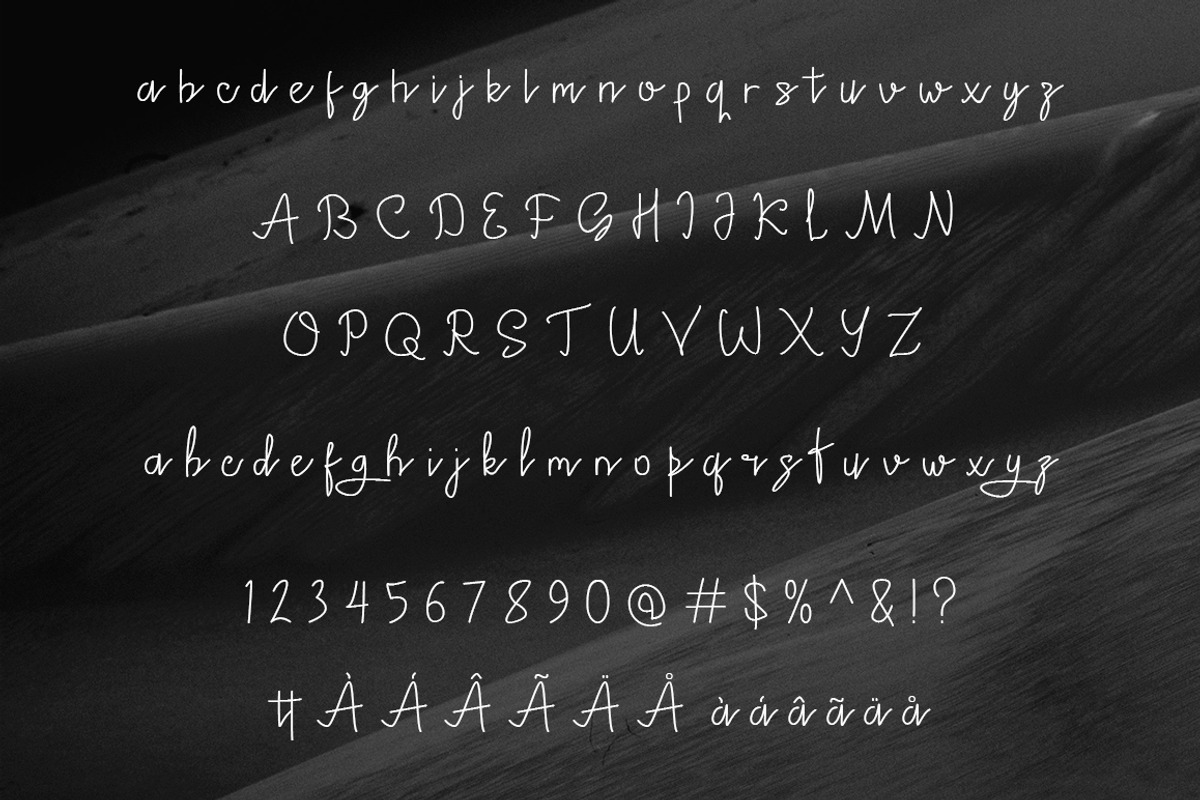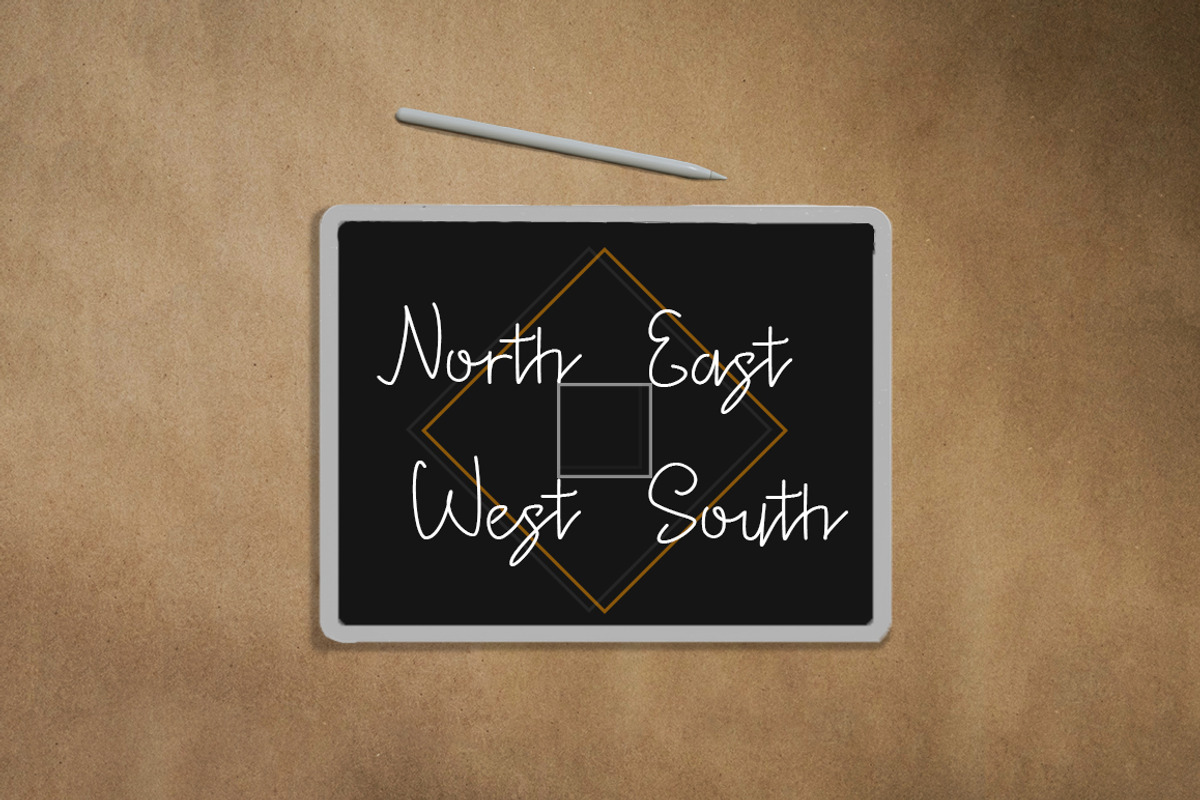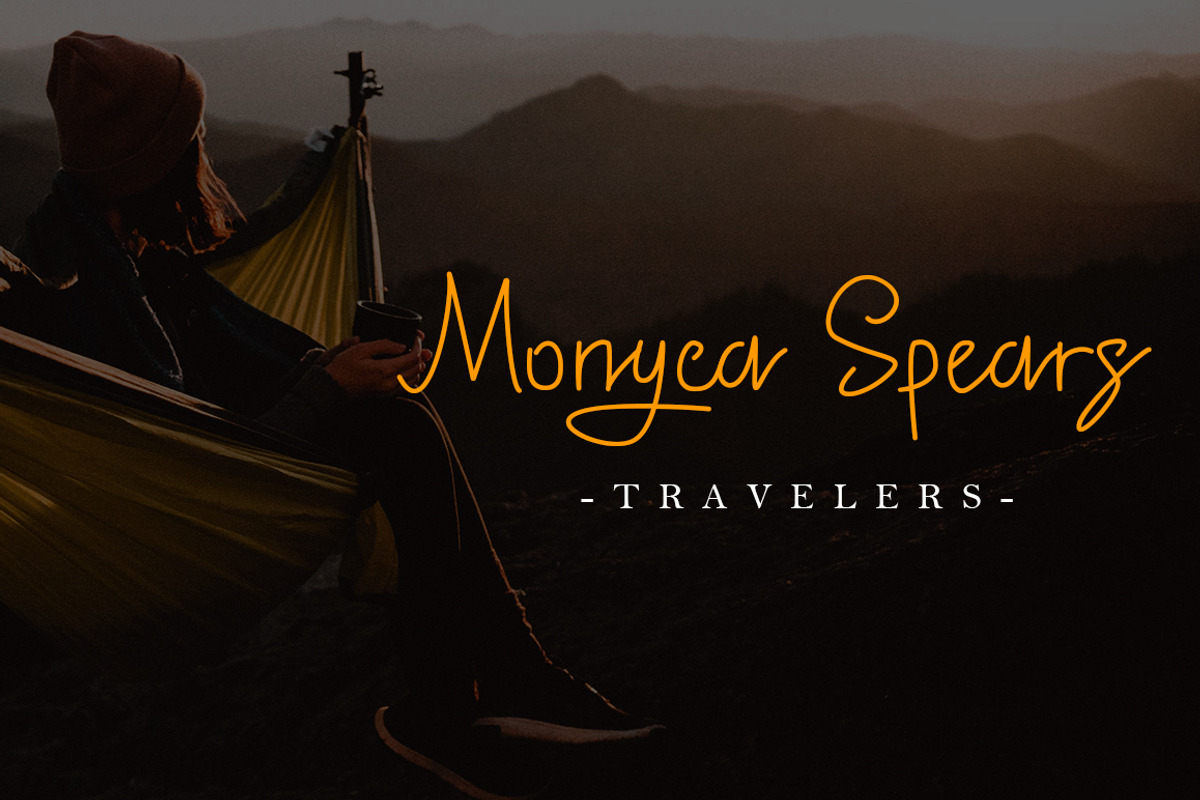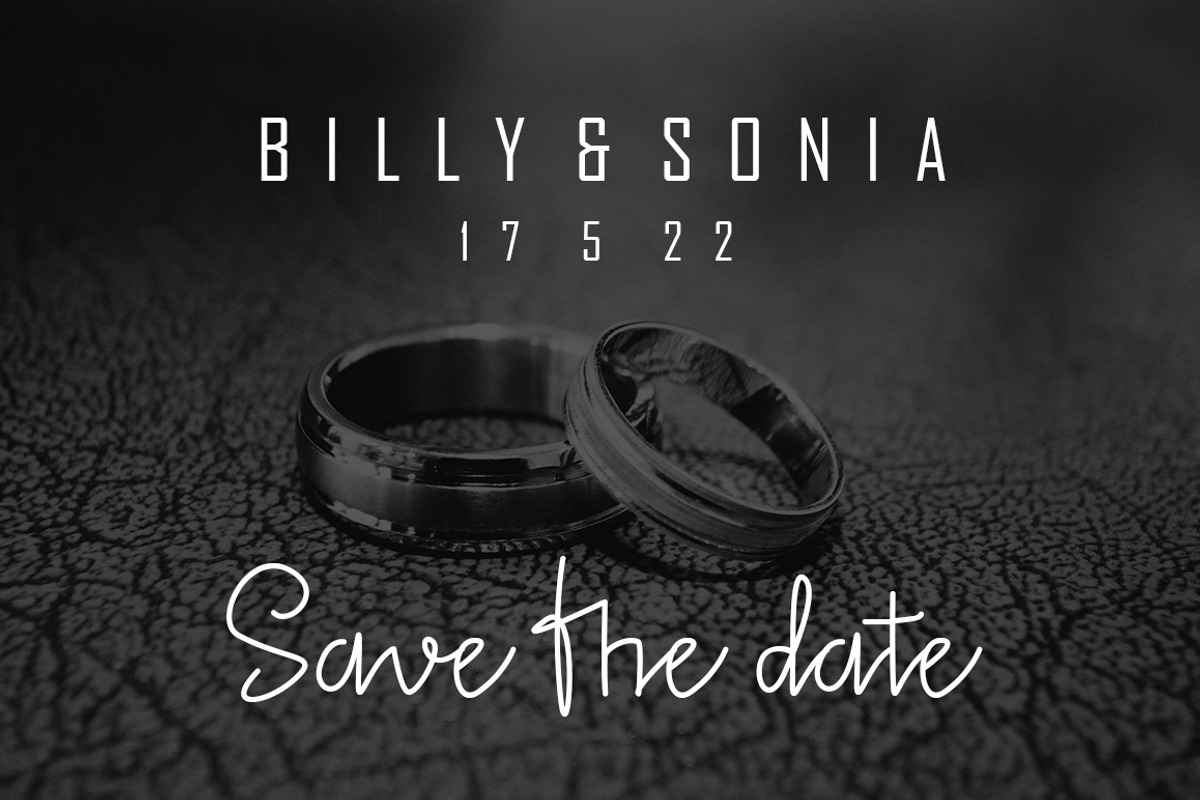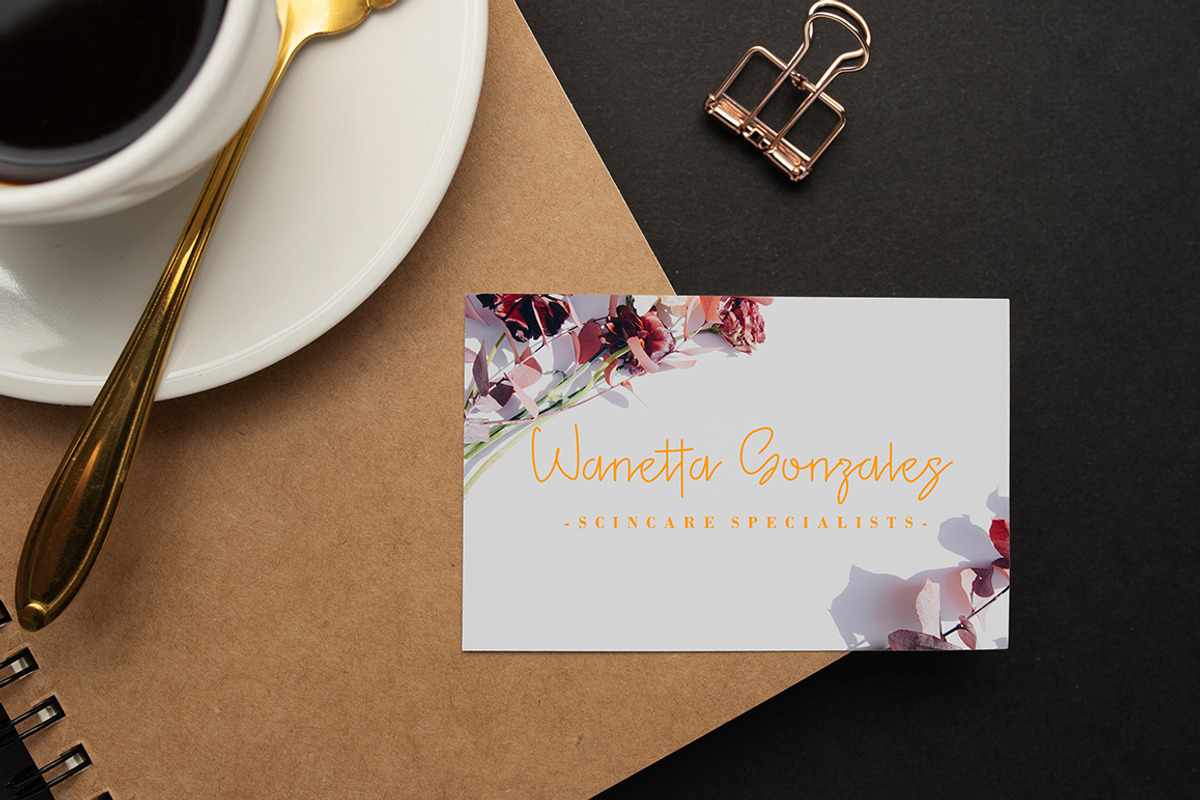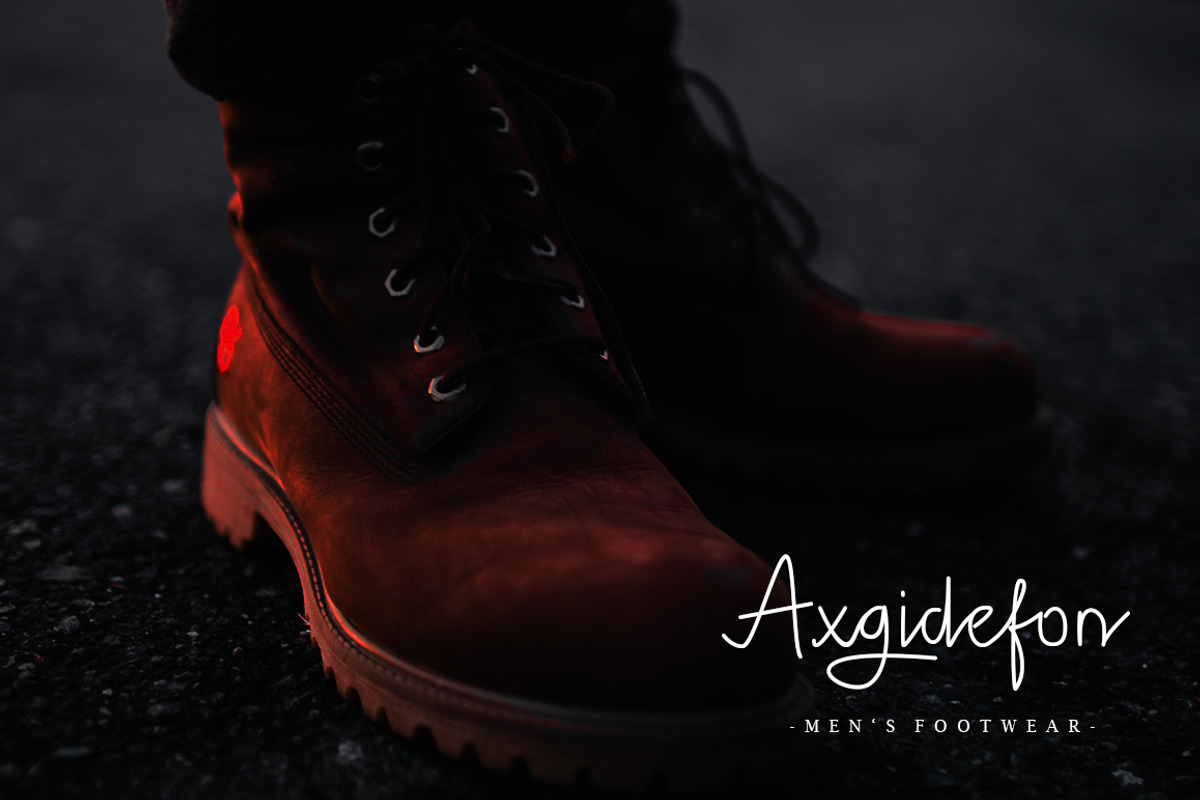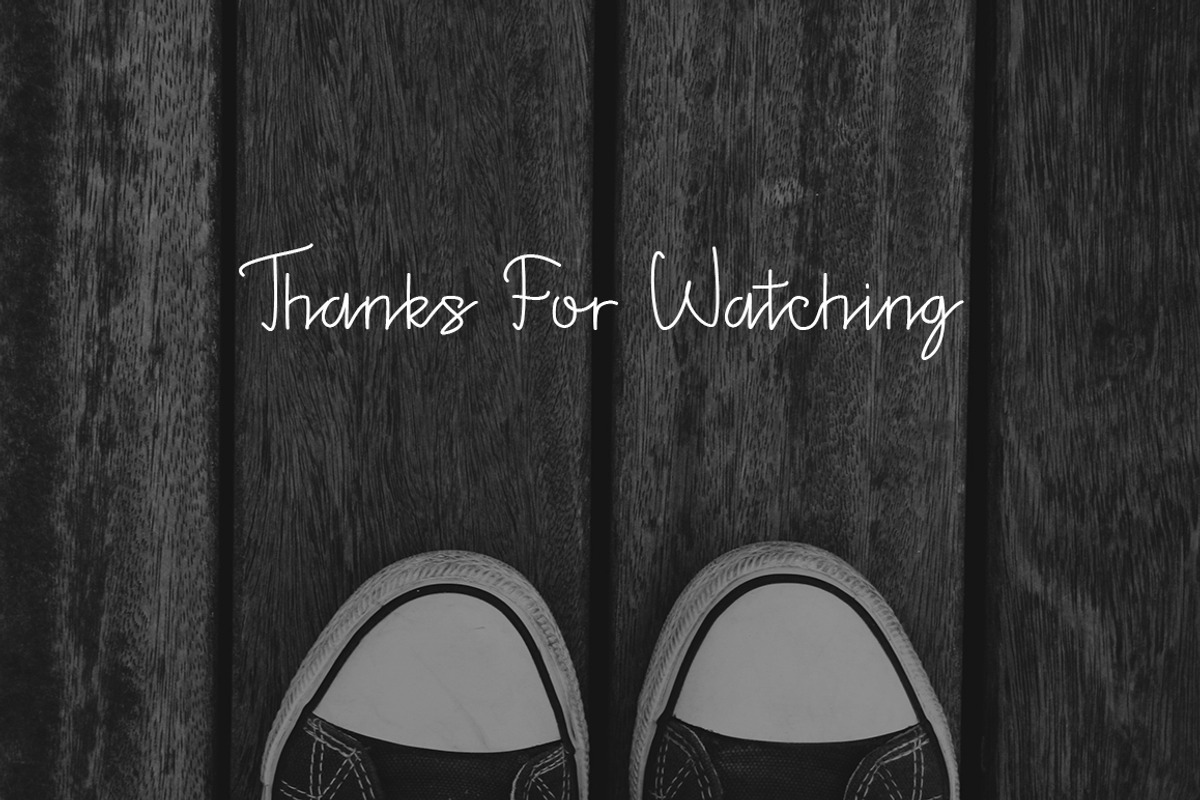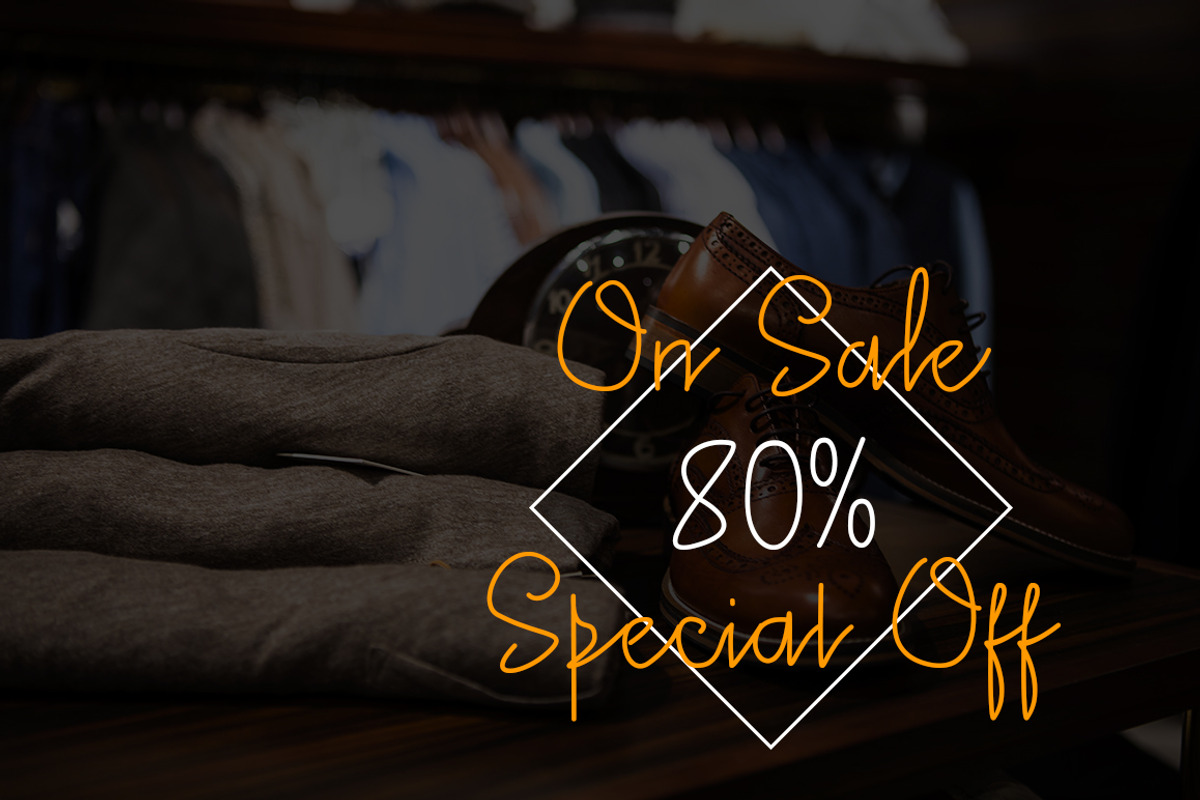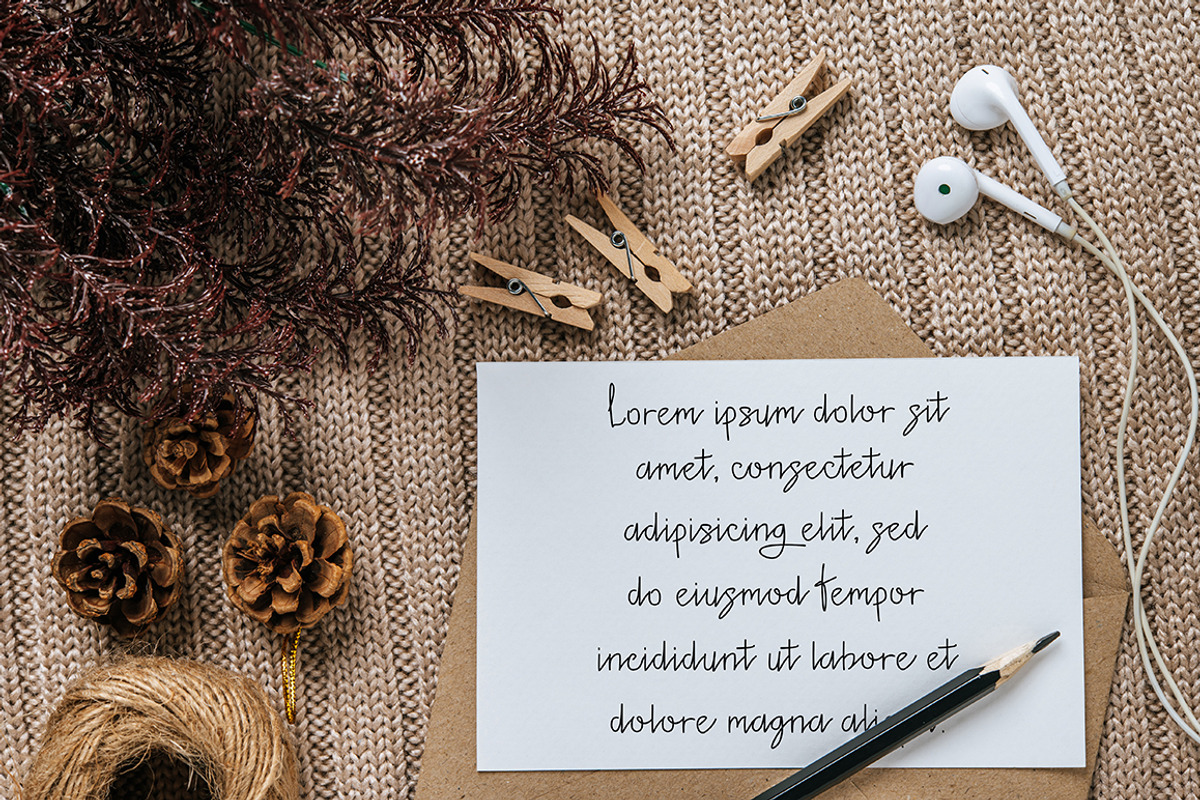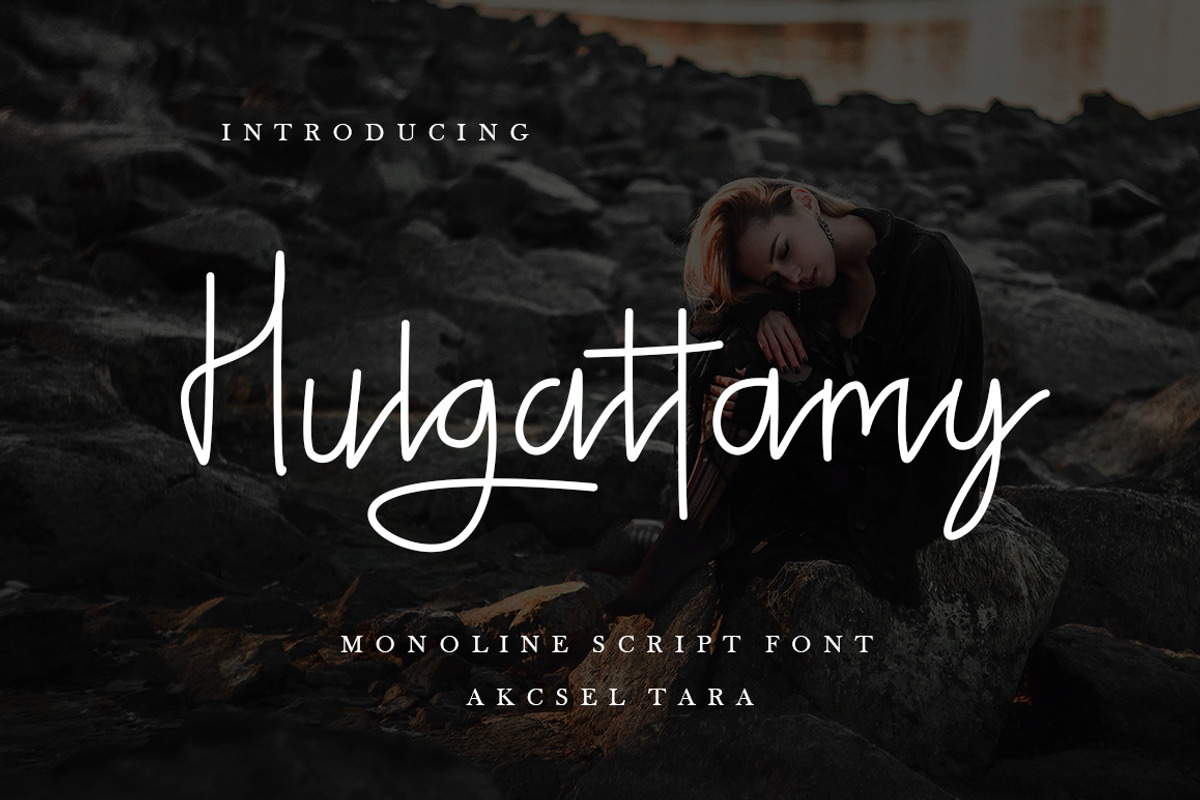
Hulgattamy - Monoline Script Font
Hulgattamy is a clean monoline script font with clear, consistent and well-readable outlines.
Hulgattamy is perfect for logos, greeting card, wedding card, name card, book titles, brand identity, packaging, any project, and much more.
Hulgattamy includes all upper and lower case standard character, punctuation, numerals and ligatures.
- Fonts include multilingual support